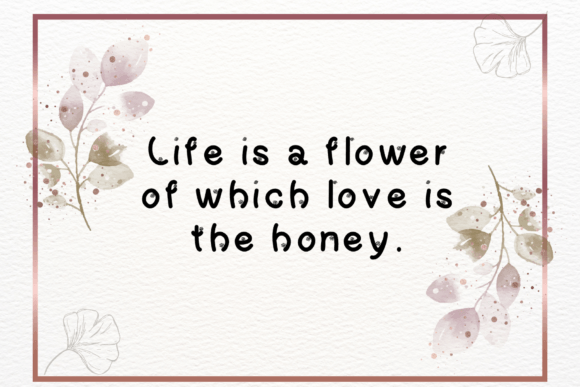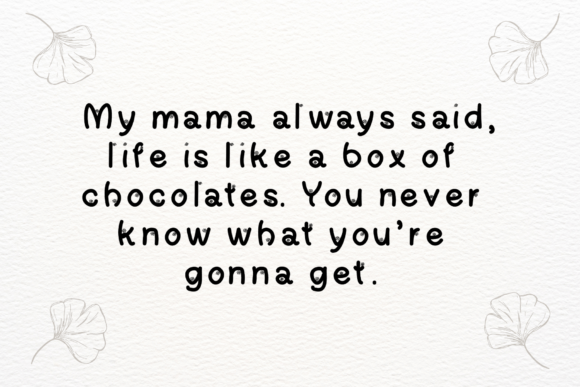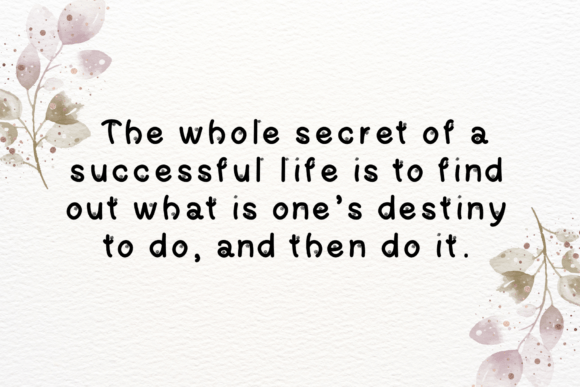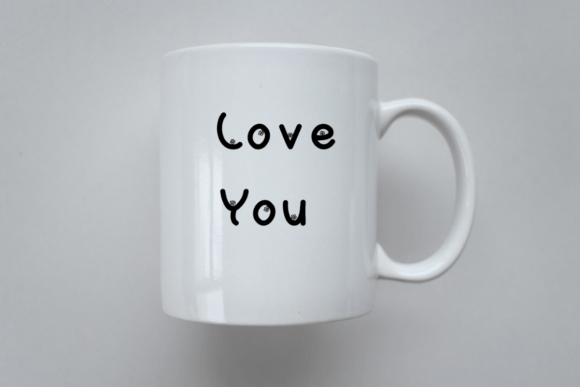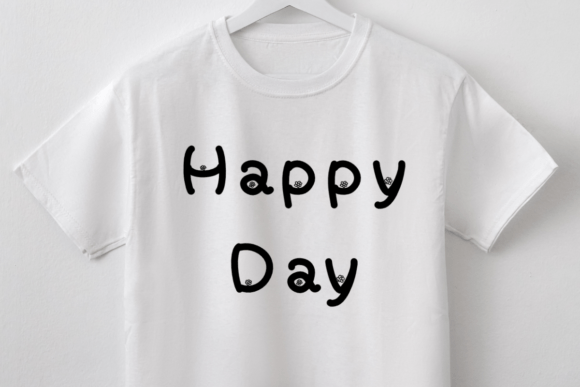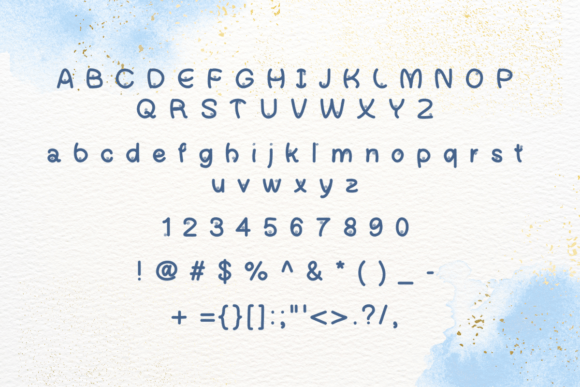
Adding a Touch of Whimsy to Your Designs
Have you ever been brainstorming a creative project and suddenly, a burst of inspiration strikes? The ideas start flowing, and you can’t wait to bring your vision to life. For designers, these moments are the spark that ignites a passion for innovation and self-expression.
One tool that can elevate your designs and make them truly special is the Floral Font. This charming, handwritten font is adorned with delicate flowers, adding a touch of whimsy and romance to any project. Whether you’re crafting a poster, designing a greeting card, or creating a brand identity, the Floral Font is the perfect choice to make your messages truly super cute.
As a designer, you understand the importance of finding the right font to convey your message and capture your audience’s attention. The Floral Font is a valuable addition to your design toolkit, offering endless possibilities for creativity and self-expression.
Floral Font Key Features
- Unique Characteristics: Floral Font features intricate, hand-drawn designs with a mix of serif and script elements, giving it a whimsical and elegant appearance.
Floral Font Review
Overall, I think Floral Font is a beautiful and delicate font that could be perfect for certain projects. It works well for ✨:
- Creating a feminine touch in branding and marketing materials
- Designing wedding invitations, cards, and other special occasion stationery
- Adding a whimsical feel to children’s book illustrations and design
However, there are some limitations to consider: ⚠️
- The font may not be legible at small sizes or in low-resolution applications
- The delicate nature of the font can make it difficult to use in bold or condensed formats
- The font’s intricate details may not translate well to certain digital platforms or printing processes
Overall, I would say that Floral Font is a lovely addition to any designer’s toolkit, but it’s essential to use it judiciously and consider its limitations. With careful application, it can add a touch of elegance and sophistication to a wide range of designs.
Floral Font is commonly used in:
- Floral-themed branding and marketing materials.
- Decorative typography and design elements.
Alternatives to Floral Font for Designers
1. Lobster Font
Lobster Font is a modern script font with a casual, elegant feel. It’s perfect for use in headings, titles, and quotes where you want to add a touch of sophistication. Lobster Font is more versatile than Floral Font, as it can be used in a wider range of designs, from formal to casual.
Pacifico Font is a beautiful, cursive font that’s perfect for use in invitations, wedding designs, and other creative projects. It has a more relaxed, beachy feel than Floral Font, making it ideal for designs that need a laid-back vibe. Pacifico Font is also more legible than Floral Font, making it easier to read.